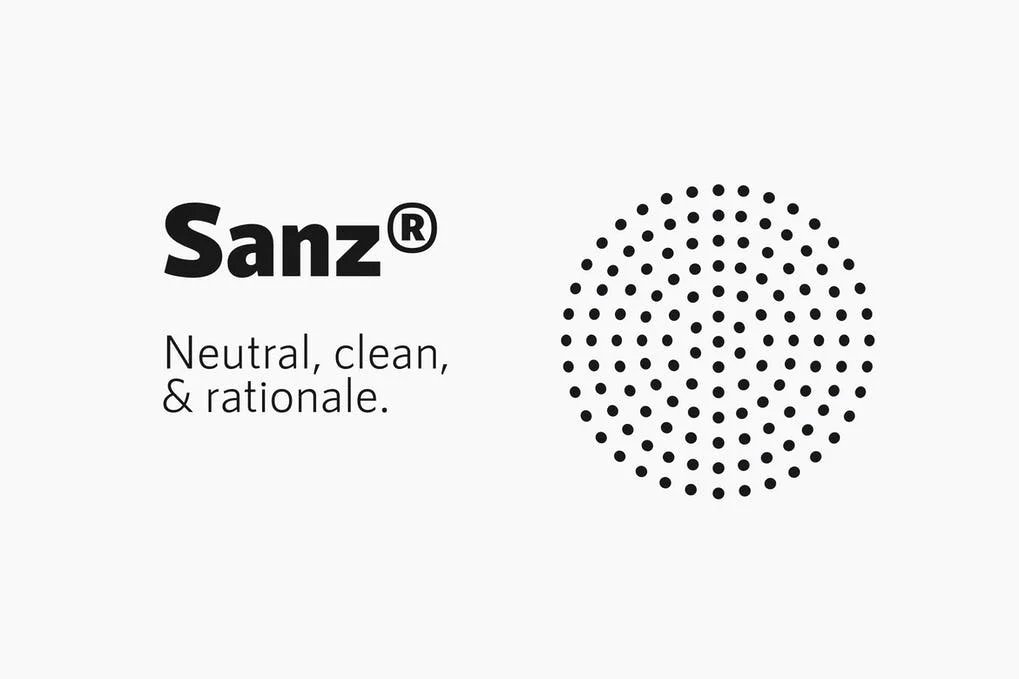
RNS Sanz Font
RNS Sanz Font neutral workhorse for any purpose, rational, clear, clean and functional: 7 weights, ramping from light to black, with small caps, files prepared for Webfont use. Ideal use on signage systems and rational architecture.
RNS Sanz Font weights included:
1. Light + Small caps Light
2. Normal + Small caps Normal
3. Medium + Small caps Medium
4. SemiBold + Small caps SemiBold
5. Bold + Small caps Bold
6. ExtraBold + Small caps ExtraBold
7. Black + Small caps Black